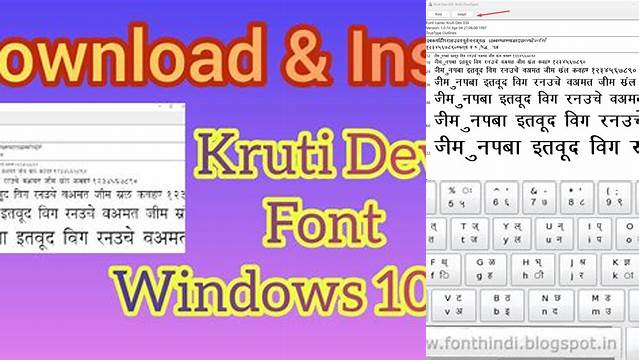
What Exactly Are Kruti Dev Fonts?
Alright, so first things first: What are Kruti Dev fonts? Simply put, they're a popular set of fonts designed primarily for Devanagari script, widely used in Hindi, Marathi, Nepali, and other languages. Think of them as the digital handwriting for all those languages. They're super important if you're working with documents, websites, or any content in these languages. Kruti Dev is particularly famous because of its widespread use in the Indian subcontinent for typing and design. The fonts have a unique style, making them perfect for a variety of creative projects, from simple text documents to complex graphic designs. Whether you're a writer, a designer, or just someone who loves to communicate in Hindi or Marathi, having Kruti Dev fonts is essential. They ensure your text looks correct and is easily readable, preserving the style and intent of the language. Understanding the importance of Kruti Dev fonts is the first step to enhancing your digital communication and creative projects. Let’s face it, using the right font makes all the difference! Not only do they help with readability, but they also add that special touch that is just what you need. These fonts can transform your content from mundane to marvelous, ensuring your message is both clear and visually appealing. They are more than just letters; they are the bridge connecting you to your audience in a meaningful way.
If you're looking to type in Hindi, Kruti Dev is almost a must-have because of its keyboard mapping. It allows users to type in Hindi using the English keyboard layout, which is super convenient. This means you don't need to learn a whole new keyboard layout; you can use the one you're already familiar with. This accessibility is one of the main reasons why these fonts are so popular. Kruti Dev also supports other languages like Marathi, which is just a bonus for you. When you have the correct fonts installed, it unlocks a world of possibilities, whether you are crafting documents, creating graphic designs, or developing websites. It's about more than just language; it's about the experience. Ensuring your fonts are installed and working is the gateway to creating content that speaks directly to your target audience, bridging the gap between you and the reader. You are not just typing; you are communicating. It's your voice and the way you want to be heard. This is the power of Kruti Dev fonts! They provide the tools you need to tell your story, in your language, and with a style that feels authentic.
Why You Might Need Kruti Dev Fonts on Windows 10
So, why should you care about Kruti Dev fonts specifically on your Windows 10? Well, if you're planning to create or read documents, or work with any content in Hindi or Marathi, then you absolutely need these fonts. Without them, you'll see a bunch of gibberish instead of actual text. Imagine trying to read a book and seeing a random mix of symbols – not ideal, right? These fonts make sure the text looks the way it's supposed to, maintaining readability and the intended design. Additionally, if you're in a field where these languages are used, like content creation, design, or even just email communication, Kruti Dev fonts are a must-have. They help you to professionally present your content and make sure everything is easily understandable by your audience. This is particularly useful in creative fields where you are trying to make an impact. Correct fonts help you to make an impact. The fonts are perfect for graphic design projects, website design, and other creative applications.
Moreover, if you're working with clients or colleagues who communicate in these languages, having these fonts ensures that you can accurately read and contribute to conversations. This is very important in today's global world. It will allow you to participate and connect in a meaningful way. Imagine this: you're collaborating on a project with someone from India and you can't read their text. That would be a communication breakdown, right? With Kruti Dev fonts, this isn't an issue. You can smoothly interact with them, creating better relationships and collaborations. It's not just about the text; it's about respecting and valuing the language and culture of your collaborators.
Essentially, Kruti Dev fonts on Windows 10 are essential for anyone needing to view, create, or edit Hindi and Marathi content. They help ensure a consistent and clear display of text. You can be more productive when you have the right tools. They are the key to engaging with the language correctly and professionally. They're not just a nice-to-have; they're a necessity for effective communication and work in relevant fields. This is how you can make sure you are not missing out on anything. They make sure you can be part of the conversation.